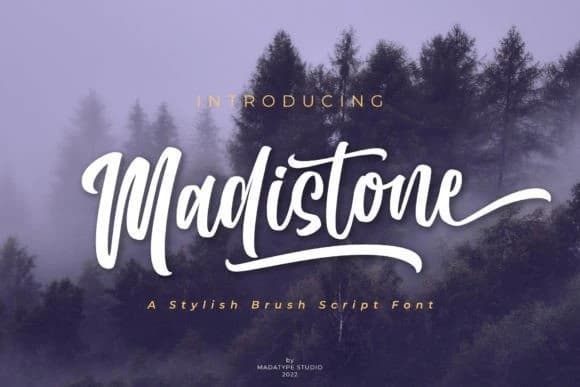
Madistone Script Font
Madistone Script Font is a script font that will make you fall in love with its style. This font has a smooth and flowing appearance that will add charm and personality to your design. Madistone also comes with many ligatures and alternates that will give you more options to customize your design.